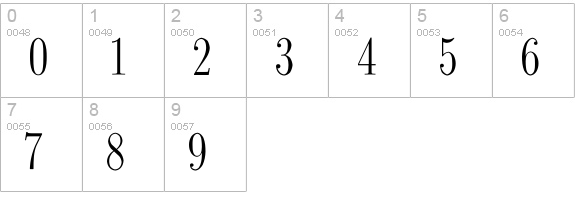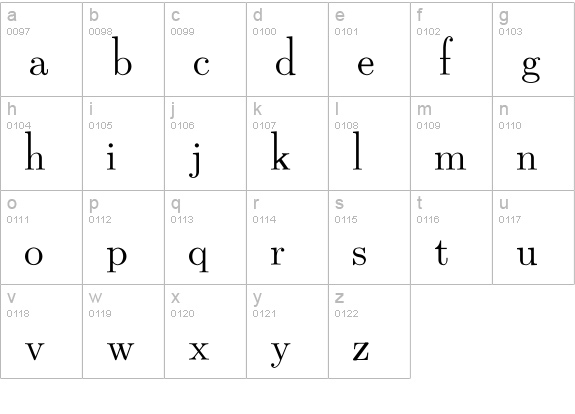
CM_Dunhill Regular Font Details
CM_Dunhill Regular is the standard, neutral variant in the CM_Dunhill typeface family \xE2\x80\x94 well suited to general body text, paragraphs, and standard typographic work.
CM_Dunhill Regular font is a versatile and modern typeface that exudes a sense of sophistication and elegance. With its clean lines and balanced proportions, this font is perfect for a wide range of design projects, from branding and advertising to editorial and web design. What sets CM_Dunhill Regular font apart is not just its aesthetic appeal, but also its accessibility. It is available for free download at FontsMarket.com, making it easy for designers and creatives to incorporate this stylish font into their work without any additional cost. Whether you're looking to elevate your next project with a touch of class or simply want to refresh your font library with a timeless typeface, CM_Dunhill Regular font is the perfect choice. Download it today and see how it can enhance your designs with its effortless charm and versatility.